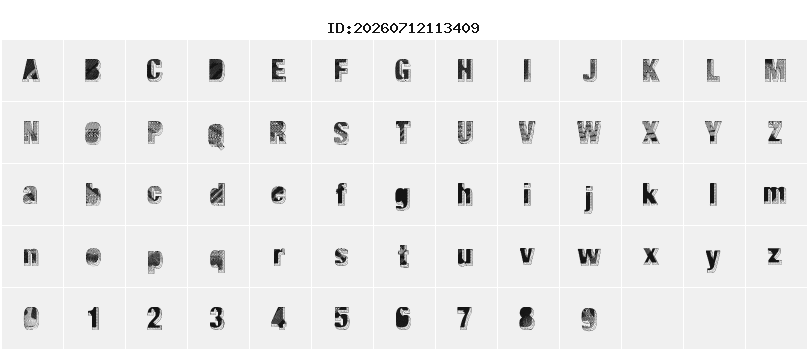
• Font Name: MajorBlack
• Full Font Name: MajorBlack
• Version: Version 1.00 November 17, 2013, initial release
• Designer: Xerographer Fonts Max Infeld
• Manufacturer: Xerographer Fonts
• Description: Made at Xerographer Studios in Chico,CA
About MajorBlack.ttf
MajorBlack.ttf is a modern, elegant sans-serif font designed for ultimate readability and visual harmony. Perfect for branding, headlines, web design, and print materials.